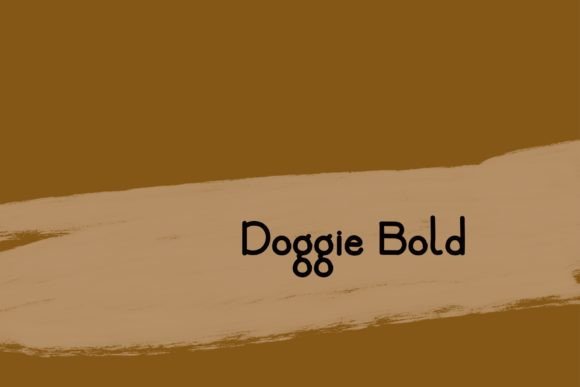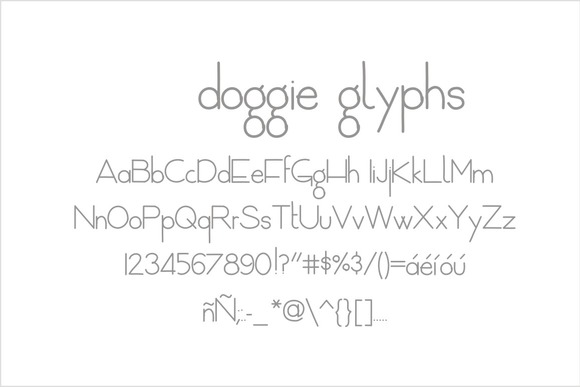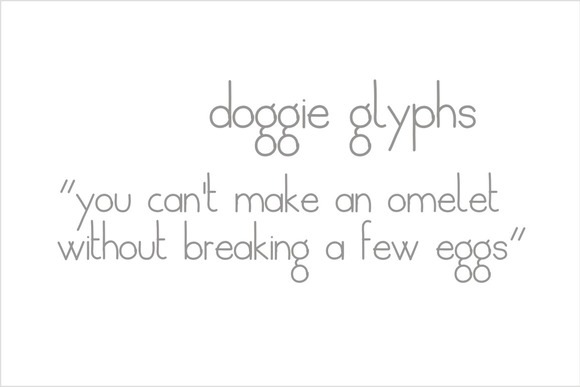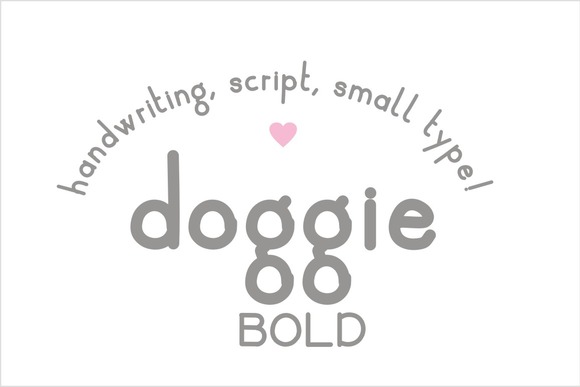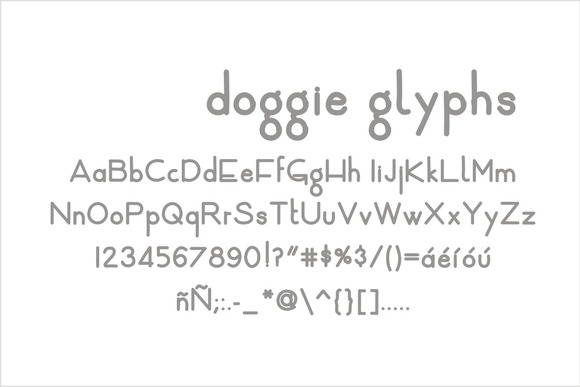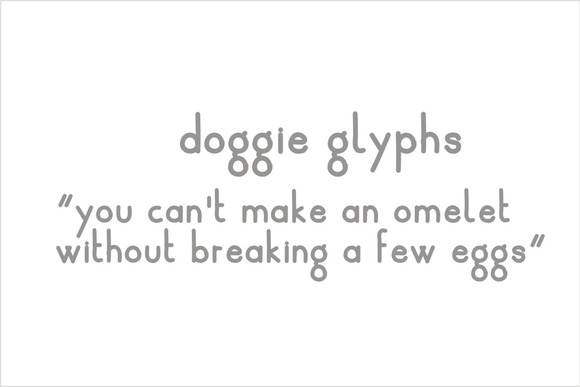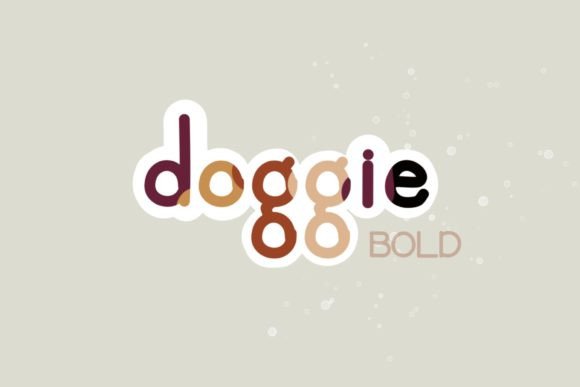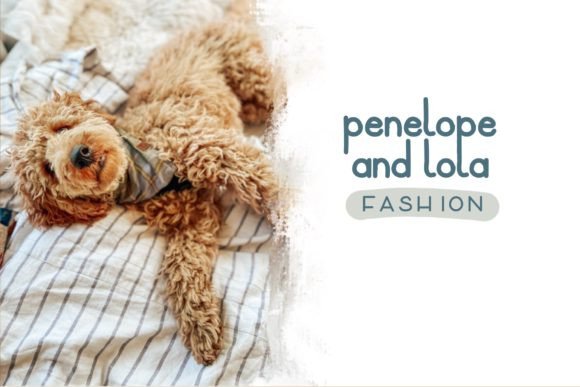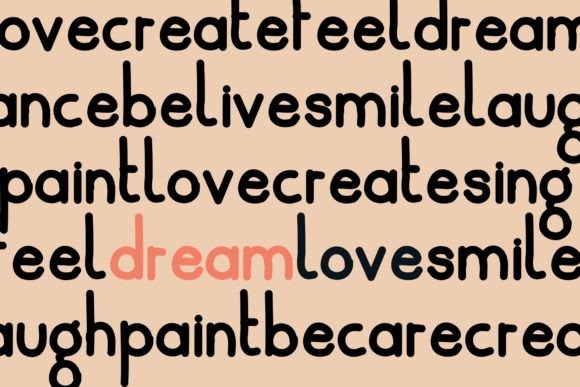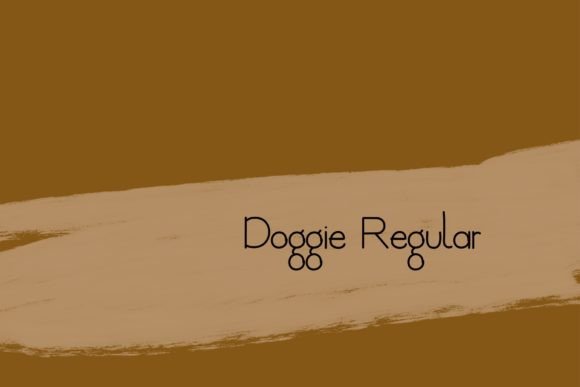
Doggie Font
About Doggie Font
Doggie is a handwritten typeface. It can be used for various purposes such as: headings, logos, posters, badges, covers, invitations and much more!